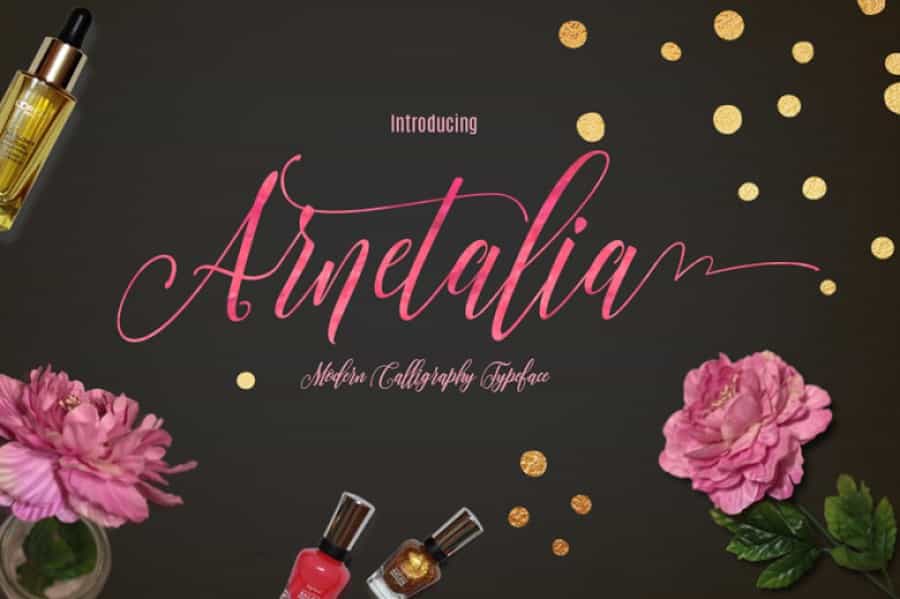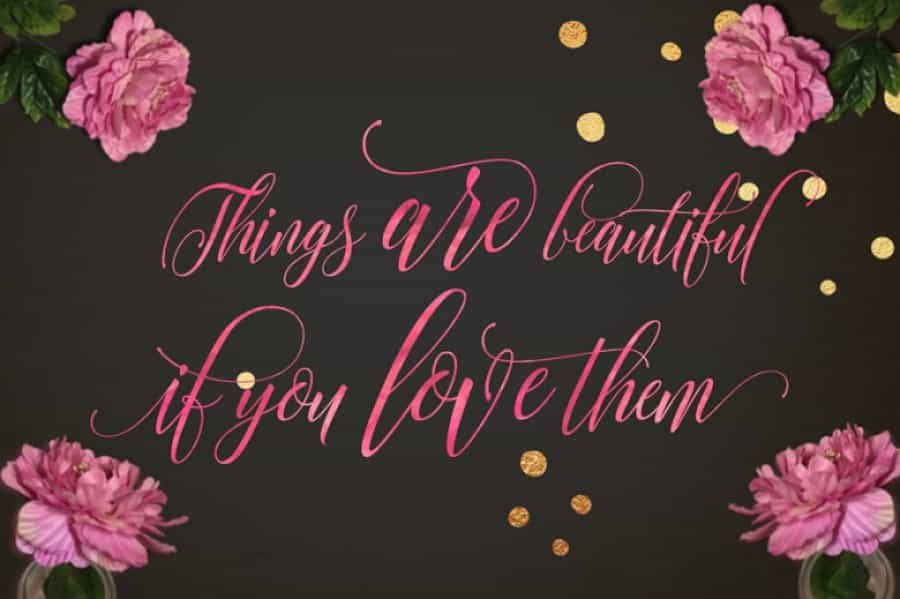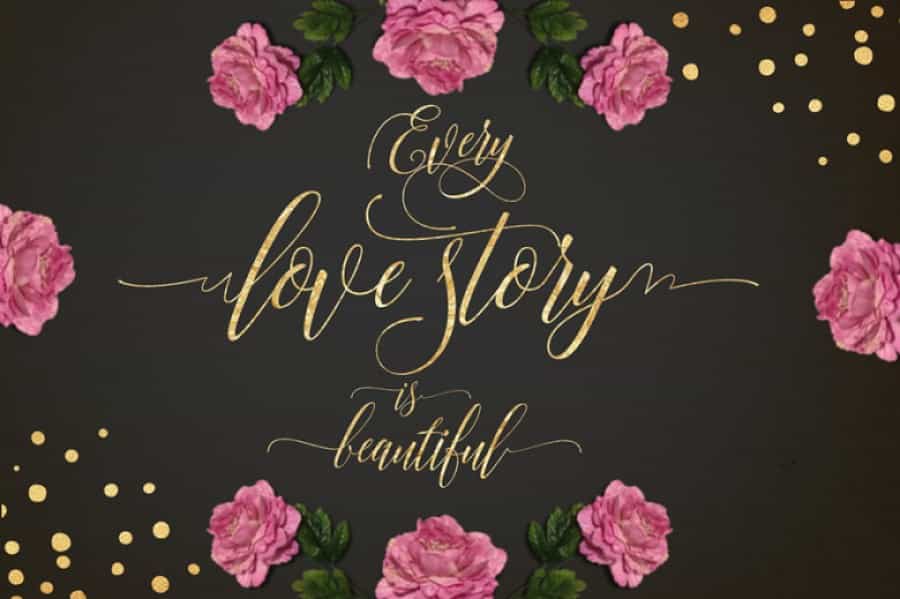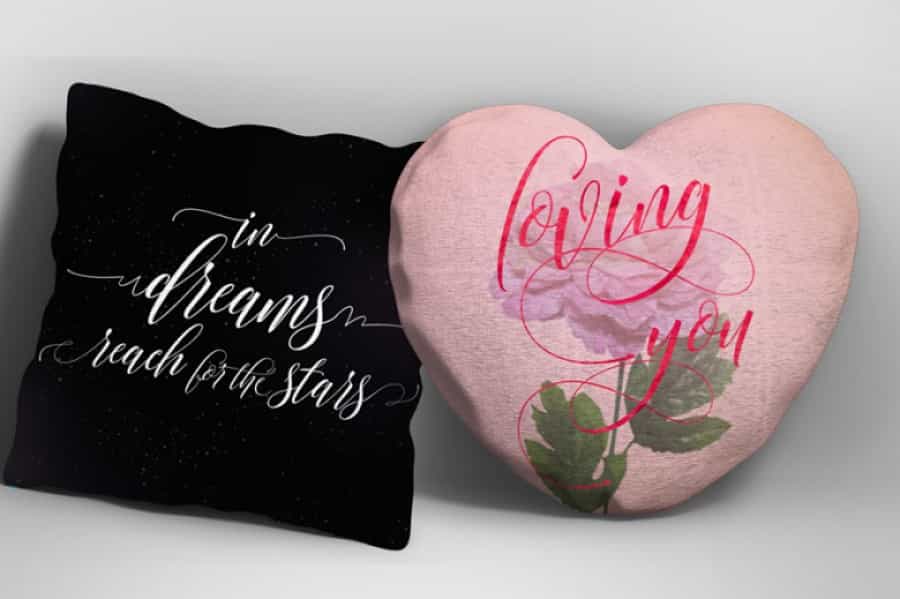
Arnetalia is an exquisite font for calligraphy with natural handwriting styles that are quite unexpected today that is ideal for making any design; whether it is scrapbooking, wedding invitations and cards. As for the freebie, artists have offered it.